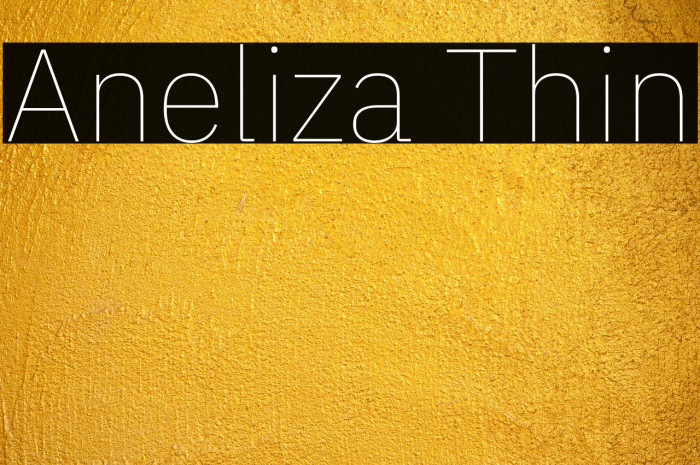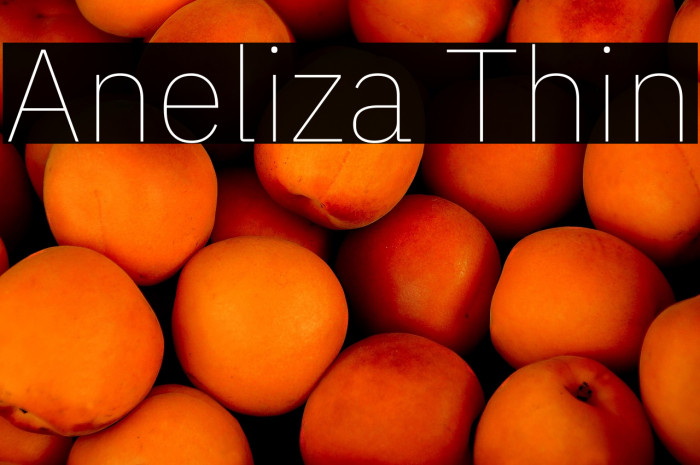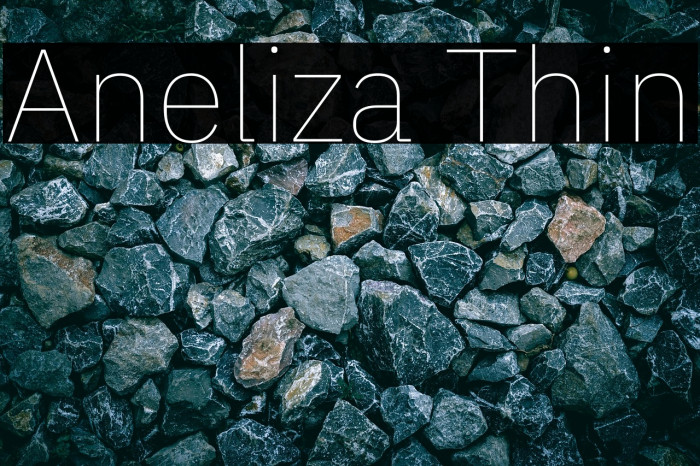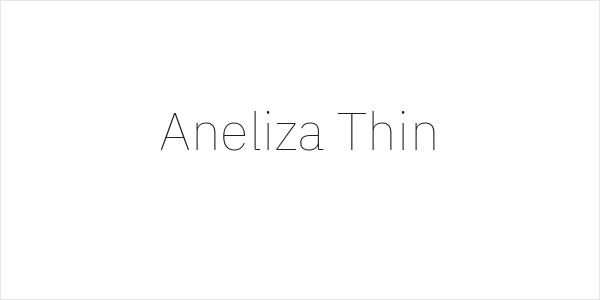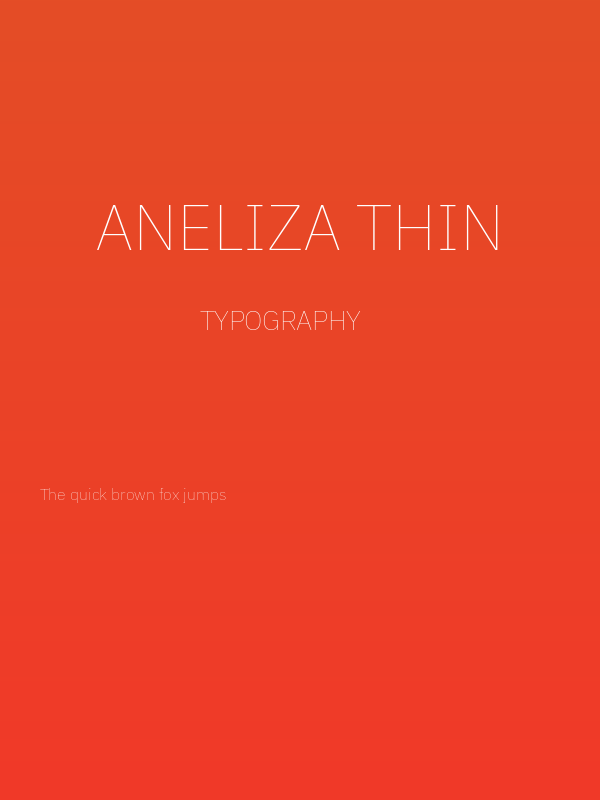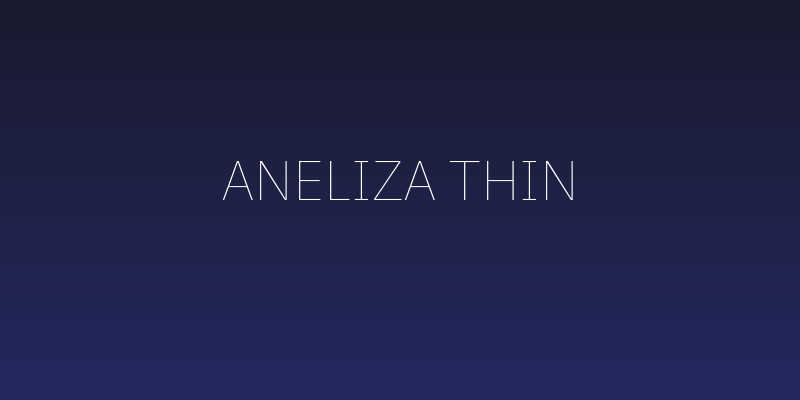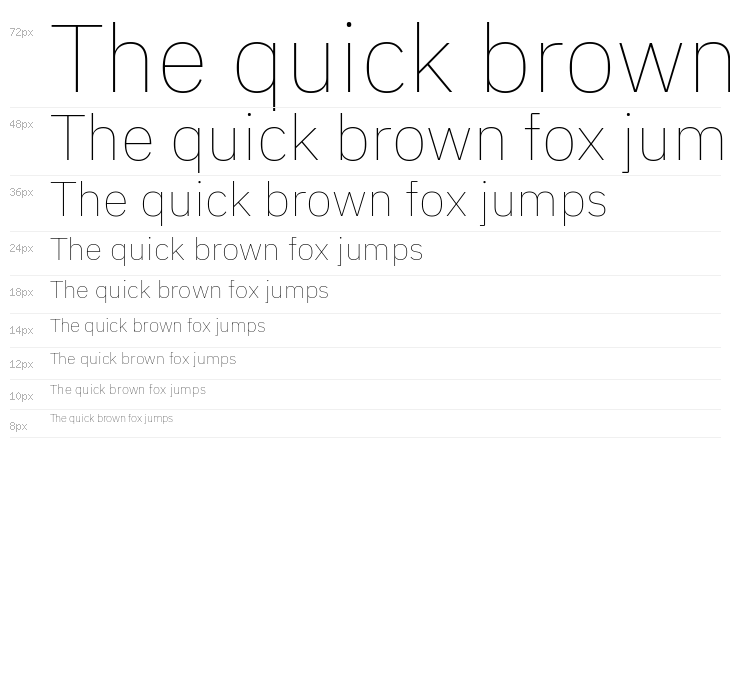
Aneliza Thin Font
Aneliza Thin Description
This font is a modern sans-serif typeface characterized by its thin, clean lines and minimalistic design. The letters are evenly spaced with a consistent stroke width, giving it a sleek and contemporary appearance. The uppercase and lowercase letters maintain a uniform height, contributing to its orderly and structured look. The numerals and special characters are designed to match the overall aesthetic, ensuring a cohesive visual style. This font's simplicity and elegance make it versatile for various design applications.
| Proposed Projects | Ideal for modern branding, minimalist posters, clean web design, and elegant editorial layouts. |